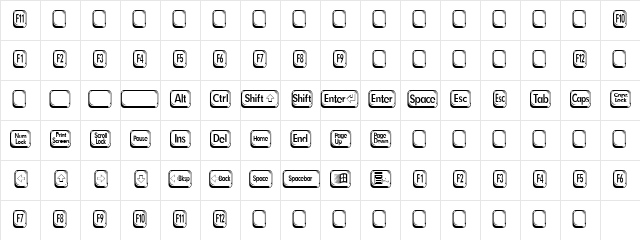
Betsy Flanagan 2 Regular Free Font
Betsy Flanagan 2 Regular
Design Context for Betsy Flanagan 2
Betsy Flanagan 2 is a composed and adaptable typeface that performs quietly and consistently across a wide range of design contexts.
Pro Tip: Use Betsy Flanagan 2 in both headline and body roles to test its range before committing to a single application.